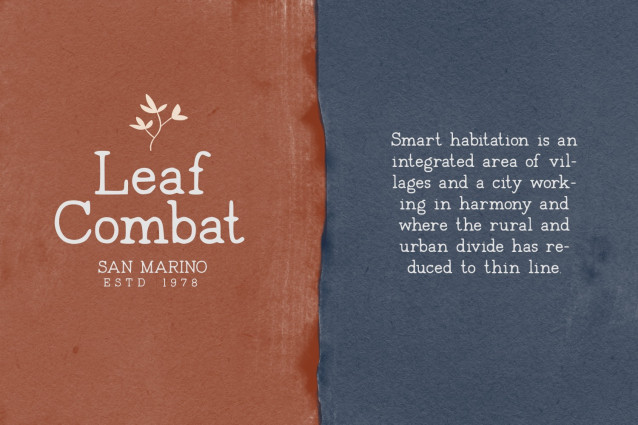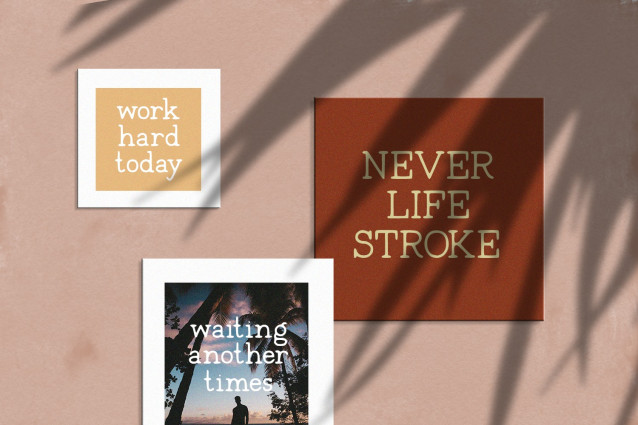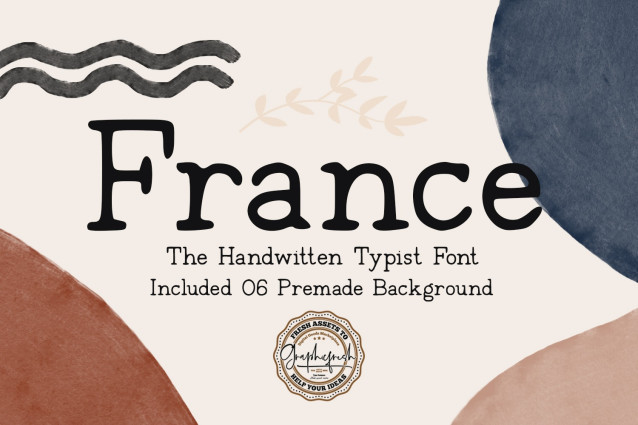
France Slab Serif Font
France Slab Serif Font I made a special font this time. This font is inspired by typewriter letters. So, I scratch using pen ink so the authenticity of the hand texture is still awake. I hope you like it. In the file, we also give you a bonus. In the form of 6 Watercolor Backgrounds with colors that are warm now.